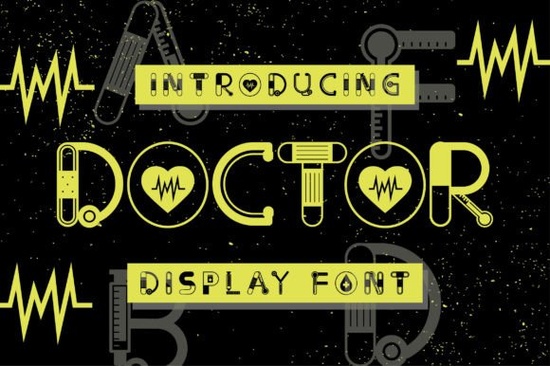
If you’re working on a medical-themed project whether it’s a clinic poster, a health blog header, or even custom merch for nurses and doctors the Doctor Font adds just the right touch of personality without being too clinical. It’s part of Creative Fabrica’s collection of decorative fonts, designed to bring warmth and character to designs that might otherwise feel sterile or overly corporate.
This font works especially well when you need something eye-catching but still professional. Think of it as the typographic equivalent of a friendly doctor approachable, trustworthy, and just a little bit stylish. You’ll find it fits naturally into projects like book covers for medical memoirs, motivational quote shirts for healthcare workers, or even signage for wellness centers.
What kind of projects is this font best suited for?
The “Doctor” typeface shines in situations where you want to convey care, expertise, or healing but with a creative twist. Here are some real-world uses:
- T-shirts and tote bags for medical staff appreciation days or nursing school graduations.
- Event posters for health fairs, vaccination drives, or hospital open houses.
- Book titles or chapter headers in self-published medical journals, wellness guides, or even fiction with medical themes.
- Social media graphics for therapists, chiropractors, or holistic health coaches who want to stand out visually.
- Print-on-demand products like mugs, stickers, or calendars targeting healthcare professionals.
It pairs nicely with clean sans-serif fonts for body text, so your message stays readable while the title grabs attention. If you’re already using another decorative style like Delash, you might consider mixing them for contrast one for headlines, the other for subheads or accents.
How does it compare to other medical-themed fonts?
Most medical fonts lean heavily into the “clinical” look think rigid lines, stencil styles, or ultra-modern minimalism. The Doctor Font breaks that mold by keeping things slightly playful while still feeling appropriate for its context. It’s not cartoonish, but it has curves and quirks that make it feel human which is exactly what many health-related brands are trying to communicate these days.
You won’t find sharp angles or mechanical rigidity here. Instead, there’s a gentle flow to the letterforms that suggests compassion and calm perfect if your audience includes patients, caregivers, or anyone needing reassurance through design.
Any tips for pairing it with other design elements?
A few quick ideas to get the most out of this font:
- Use soft color palettes pastel blues, mint greens, warm grays to complement the font’s gentle vibe.
- Avoid overcrowding. Let the letters breathe. This font has personality, so give it space to shine.
- Try layering it over subtle textures watercolor washes, linen patterns, or light grain to enhance its handmade feel.
- For contrast, pair it with a simple geometric sans-serif (like Montserrat or Lato) for supporting text.
If you’re designing for print, test how it looks at different sizes. Some decorative fonts lose clarity when scaled down, but Doctor holds up surprisingly well even on smaller items like keychains or labels.
Whether you're making gifts for med students, branding a new telehealth service, or just adding charm to your next craft fair booth this font gives you a solid starting point with room to personalize. Sometimes, the smallest design choices make the biggest emotional impact.